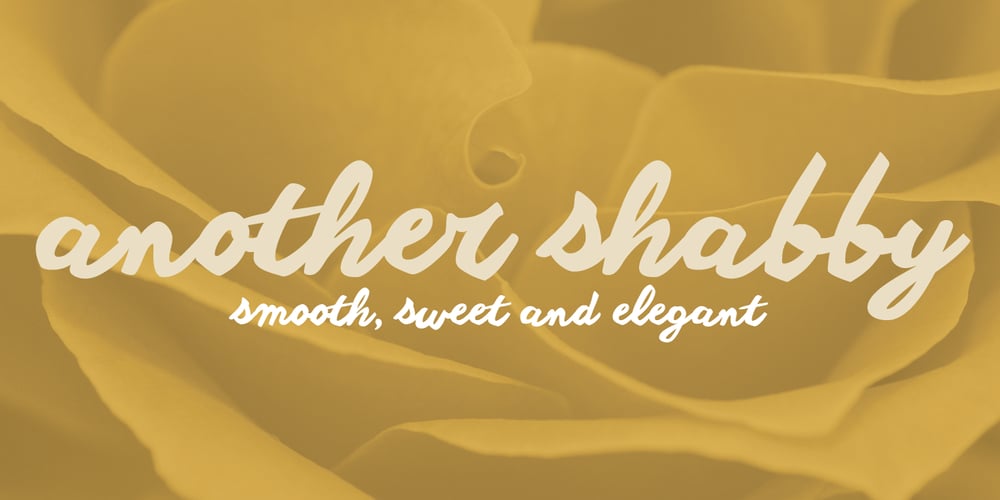
Another Shabby
Another Shabby font
Another Shabby Font Family was designed by Francesco Canovaro and published by Zetafonts. Another Shabby contains 6 styles and family package options. Another Shabby is a script typeface family. Its shapes are defined by rough, wide brushstrokes, slightly rounded in corners to mimic the feel of a real handwritten casual script.